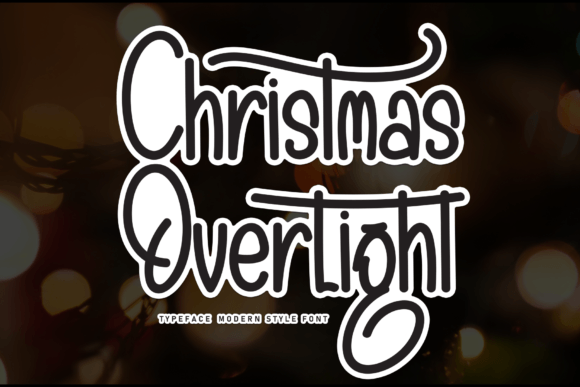
Deck the Halls with Typography: Unwrapping the Magic of Christmas Overlight Font
It’s that time of the year when creativity knows no bounds, and our minds are filled with visions of sugarplums, sparkling lights, and festive cheer. As designers, we’re always on the lookout for that special something to make our projects stand out, and what better way to do that than with a font that embodies the very essence of the season? Enter Christmas Overlight Font, a whimsical handwritten font that’s sure to bring a smile to your face and a dash of holiday magic to your designs.
This delightful font is more than just a pretty face – it’s a valuable tool for designers looking to add a touch of personality to their work. With its playful strokes and charming curves, Christmas Overlight Font is perfect for creating festive invitations, greeting cards, and social media graphics that are sure to spread cheer and get people in the mood for the holidays.
Christmas Overlight Font Key Features
- Unique Characteristics: The Christmas Overlight Font features a unique blend of modern and traditional design elements, with intricate details and ornaments that evoke a sense of magic and wonder.
Christmas Overlight Font Review
Overall, I was quite impressed with the Christmas Overlight Font! It’s a beautiful, festive font that’s perfect for any holiday project.
- Unique and creative design: The font has a unique blend of traditional and modern elements that set it apart from other holiday fonts.
- High-quality typography: The font is well-designed and easy to read, even in smaller sizes.
- Festive feel: The font has a great holiday vibe that’s perfect for Christmas cards, decorations, and other seasonal projects.
Overall, I’m impressed with the Christmas Overlight Font! While it has some limitations, it’s a great choice for any holiday project that needs a unique and festive font.
For the most effective use of the Christmas Overlight Font, pair it with a simple design and bold colors. It’s ideal for creating festive holiday invitations, social media posts, and greeting cards.
- Holiday invitations and cards
- Christmas-themed social media posts
- Festive logo designs